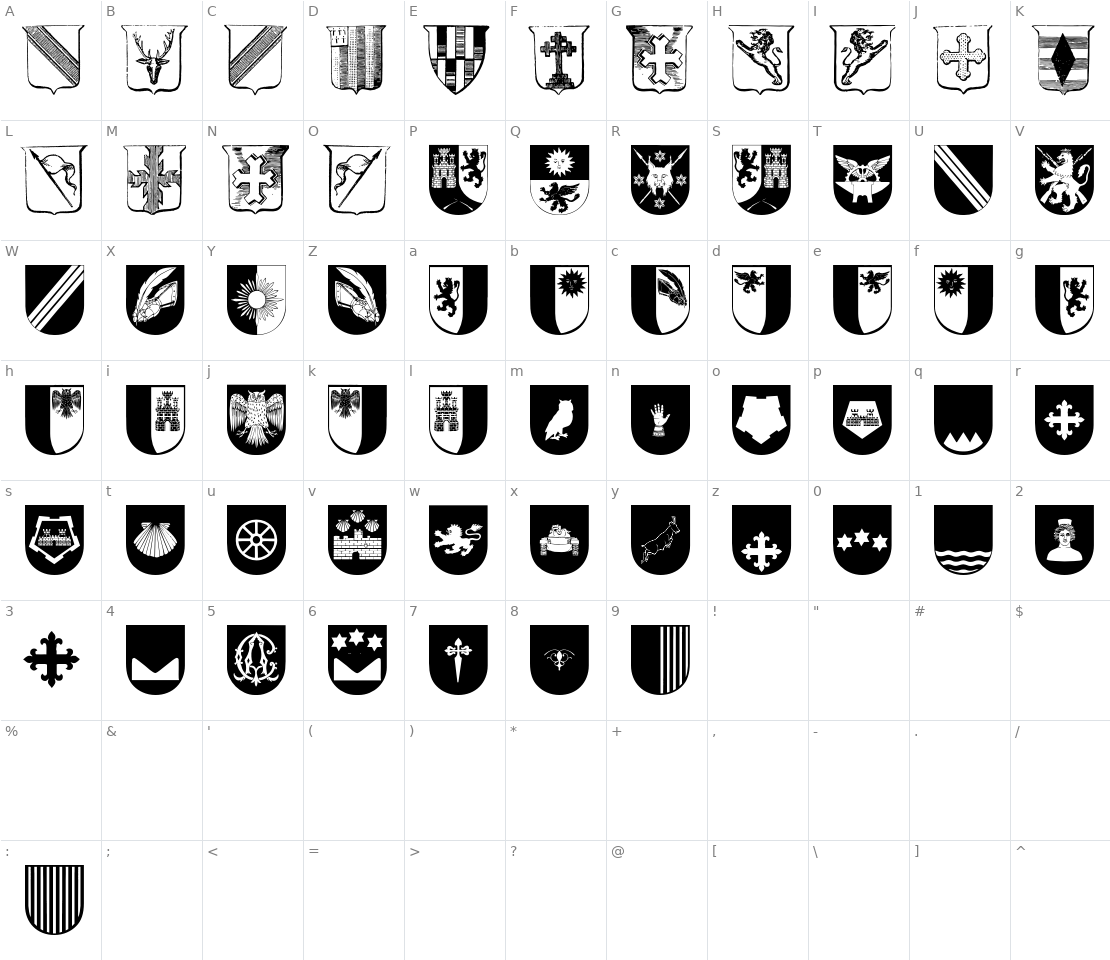
Wappen
Wappen is an ornamental font from Intellecta Design containing heraldic shields, crests, and coats of arms rather than traditional letterforms. The symbols draw from European medieval heraldry, offering a collection of decorative crests and emblems useful for certificates, historical publications, invitations, or any design that needs a touch of old-world formality. Intellecta Design has a deep catalog of historically inspired dingbat and ornament fonts, and this one fits squarely in that tradition.